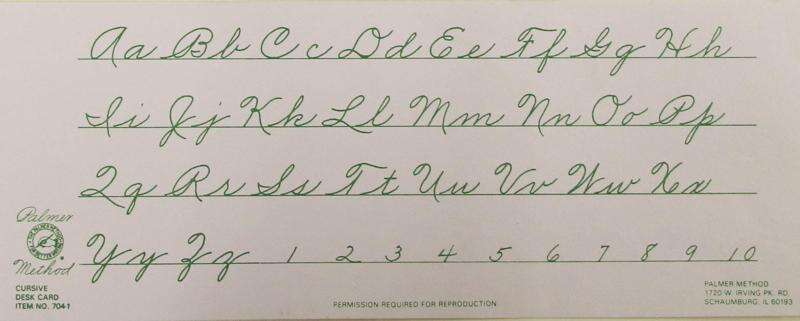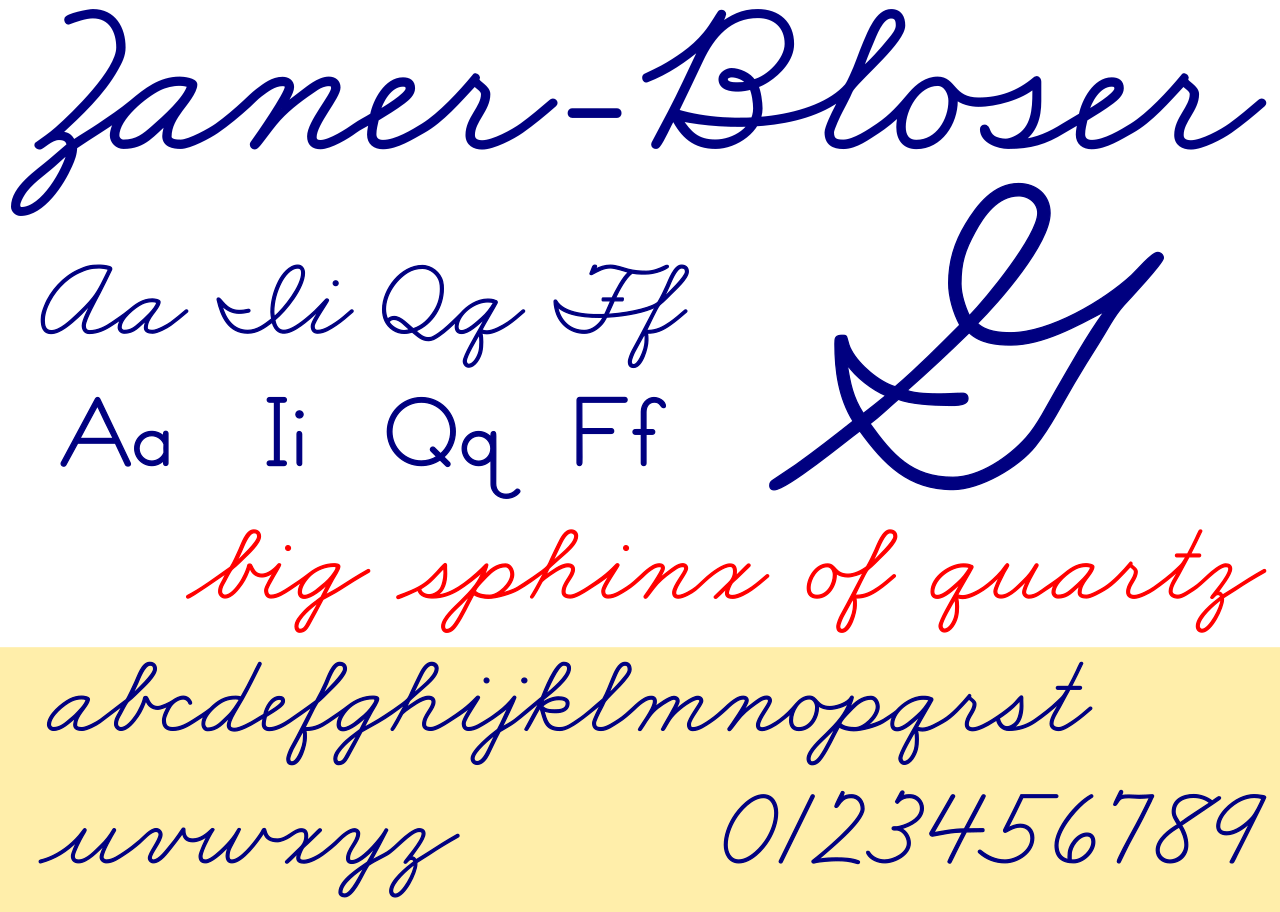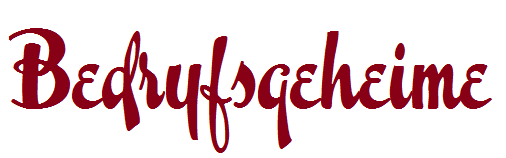
Just about every operation has their own secrets and we're no exception to that. From secret recipes to sexuality, company secrets seem to have a huge interest with the public. In fact there's a fascination with this. Sadly, a lot of this stuff is written by disgruntled customers or employees where there are sometimes half-truths, myths, or outright lies. Everyone has a right to their views. It is sometimes forgotten that businesses, no matter how automated they may
be has one or more humans behind them. People mess up. Now more consumers are sold on honesty than anything else, time is ripe for this. Who better to present some of our secrets than the company itself? There's been more than one time that the "moral fabric" of our operation has been questioned, especially since we're Christian owned. In honor of making it through the first 40 years we doing some of the bragging . Of course we are not telling all, but instead some of the more unusual ones. In honor of our first 4 decades, here's 40 of them.
1. SWMCA' s original name was "Calligraph Stephen".
As funny as it seems, it's true, and not entirely without reason. Our founder had a speech defect that was severe. He could not pronounce the word calligraphy properly until he was at least 38 years old. That name, "Calligraph Stephen", was swiftly changed within a year and a half!
2. There is
church connection, but it's not what you'd think.
Our company was founded next to the narthex within Faith Lutheran Church
in Kansas City, Kansas. That was where the calligraphy books and pens that would be the beginning of SWMCA were handed over. Outside of that, there's no connection with the church. All decisions good or bad have been made by the company ever since. We've never been owned or operated by the church and as of this date, we still aren't. We
don't have any control over this [or any other] religious institution, just as they have no control over SWMCA's operations. The books and pens previously belonged to Doris Frickie (now Yonkers). With that said, actually we had two founders. She became a founder by giving our founder, the then 10 year old boy, Stephen what was needed to start that calligraphy stand which would evolve into becoming this company.
The church is located in McGrew Grove. Today this is the only "Faith Lutheran Church" known to us as currently serving the Greater Kansas City Metropolitan Area.
The church is located in Wyandotte County, Kansas. At the time of our founding there used to also be a Faith Lutheran Church in neighboring Johnson County, which where most of Kansas City's rich and elite live. It had operated in Prairie Village, Kansas and regrettably had their final worship service August 27, 2017. For decades many have wrongly
thought that the Johnson County church was the one SWMCA originated at, but it was the Wyandotte County one we originated in. For a long time Wyandotte County was billed as "the poorest county in Kansas."
3. The 'obsolete' final t has been included in some SWMCA script fonts -and:
it was used wrongly by the company for a long time. For generations there was a final t
used on words in cursive ENDING with the letter "t". It fell out of favor as the regular lowercase "t" could also be used, and this eventually became the norm. See; when you market fonts to the public be it for digital typography or to sell painted signs, your potential customer wants to know what they're buying. In the typographic industry, we use what are called type specimens
to illustrate this. That's where 'the quick brown fox' and 'the lazy dog' comes in. Also we use stupidly funny stuff or just plain gibberish for this. That's also where SWMCA was messing it up with the final t's. The final t is suppose to be at the END of a word ONLY. We were using it AT THE BEGINNING of words as well. In fact, in our [font] catalogs from back in the day, we didn't even call it a "final t". We instead marketed it an "endcap t" which could be used if either the FIRST or LAST letter of a word was t.
4. HAMBURGEFONTS is not a real word.
It was invented by the typographic industry so you could see more of the letters in each font. Later the Roman numeral for the number 4 (or IV) was added at the end by many foundries. Some designers and foundries use it exclusively, but the most common use is when time and/or space [when in print] does not permit for a standard type specimen.
5. SWMCA was incorporated as an LLC in part so we'd have limited obligations.
A major part of incorporating this way was primarily so we wouldn't be obligated by the State of Missouri to submit an annual report. Also we could avoid having to decide if we would be a S corporation or a C one right away, along with other messes.
6. The size acceptance movement inspired one of our brands in 1992, and two type catalogs were dedicated to this line.
We weren't the best (at least morally) with naming some of our fonts.
The fonts that got the seeder or obscure names were usually -but not always those that might have been otherwise written off by those in the business community, a font we felt would only be widely used by those on the fringes of society, those outside of the norm of what would typically be offered to the public, along with those we couldn't determine another socally acceptable name for -particularly those that were experimental or had a much higher percentage of characters with what most of the graphic industry would judge as design flaws; for their time of creation. Some of our earliest handwriting fonts like Cawgale were named that way too. It was made out of cries for the right to unionize; and fair government treatment for sex workers.